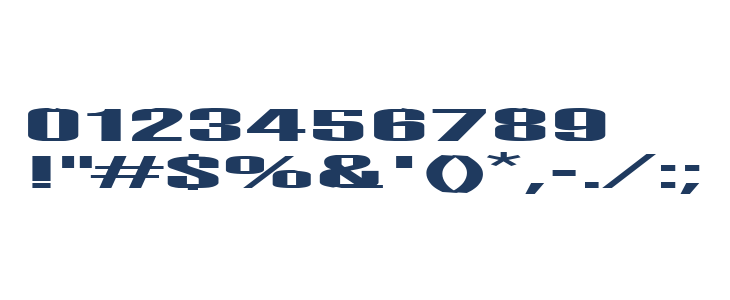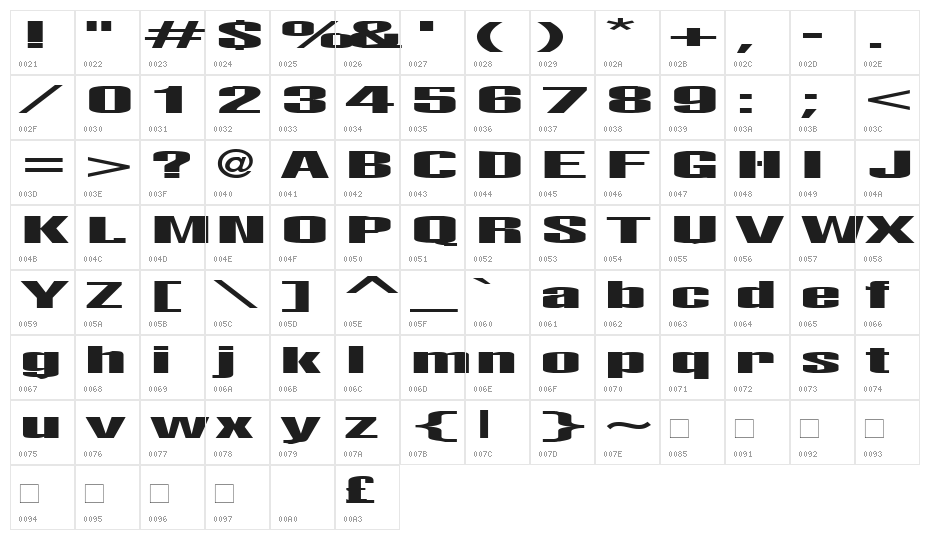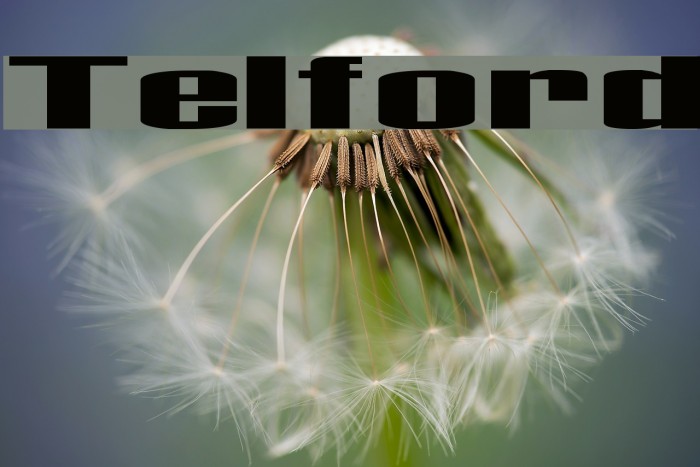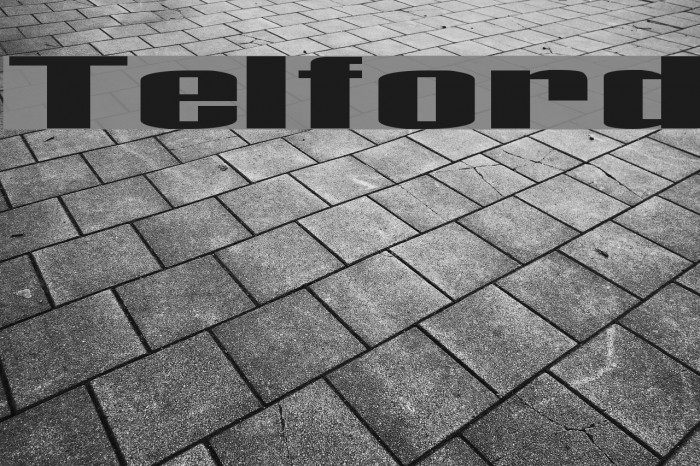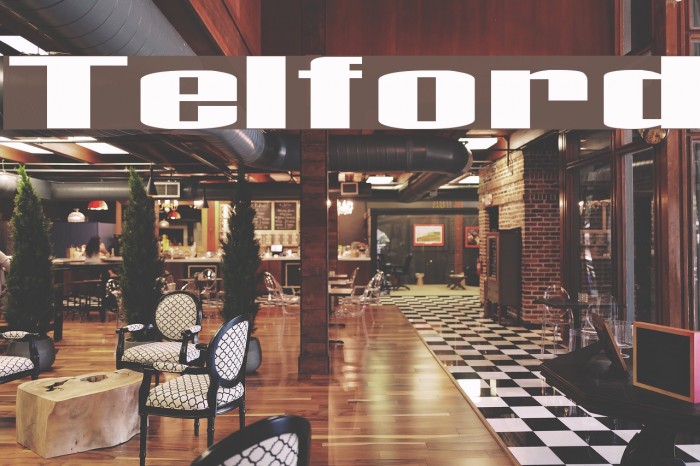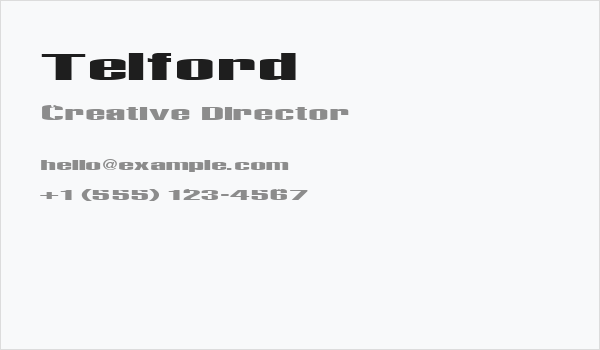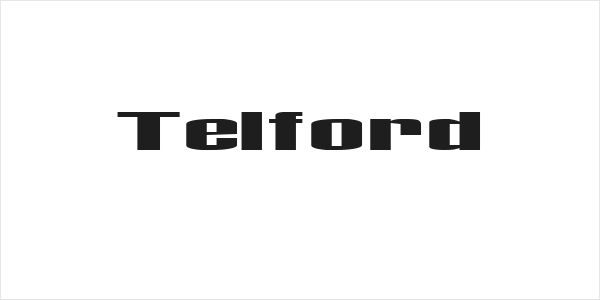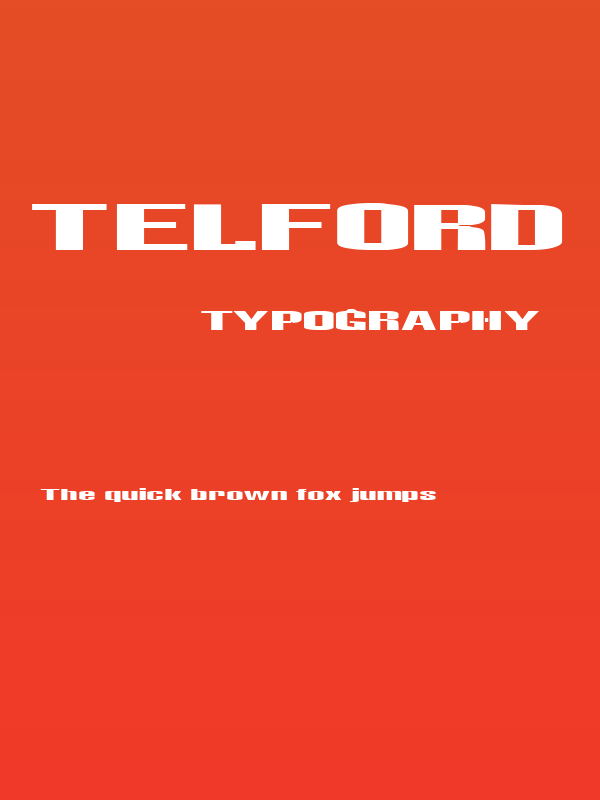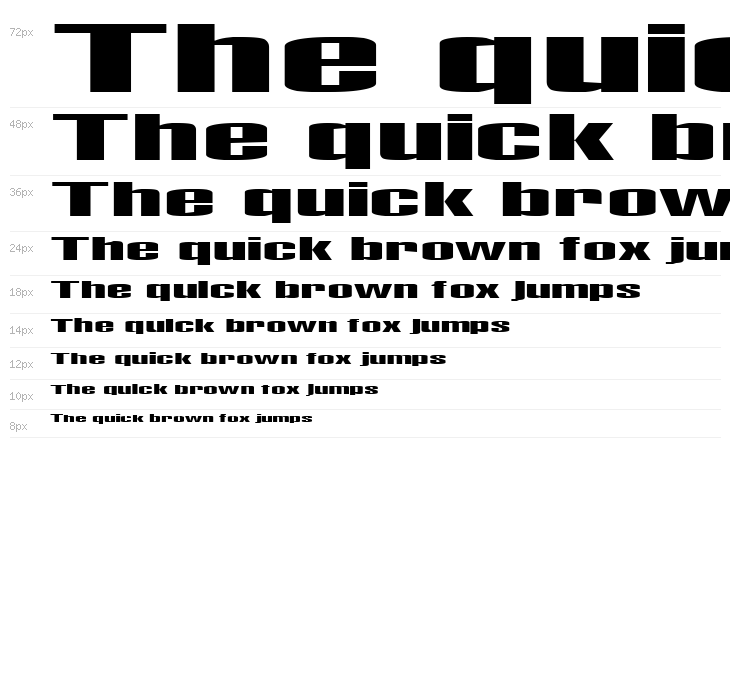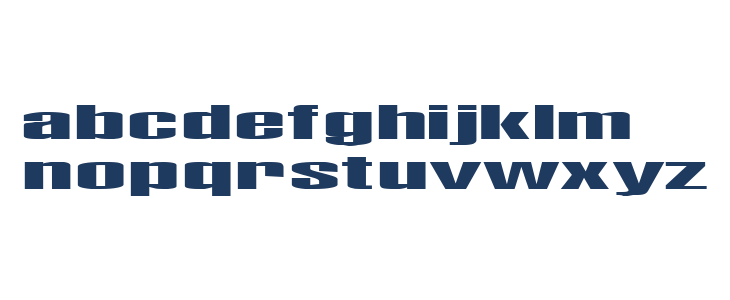
Telford Font
Telford Description
This font features a bold and impactful design, characterized by thick, block-like letters that convey strength and assertiveness. The uppercase and lowercase letters maintain a consistent width, contributing to a uniform appearance. The numerals are equally robust, ensuring clarity and readability. Special characters are designed with the same boldness, making them stand out effectively. The overall style is modern and assertive, suitable for making strong visual statements.
| Proposed Projects | Ideal for headlines, posters, branding materials, and any project requiring a strong visual impact. |